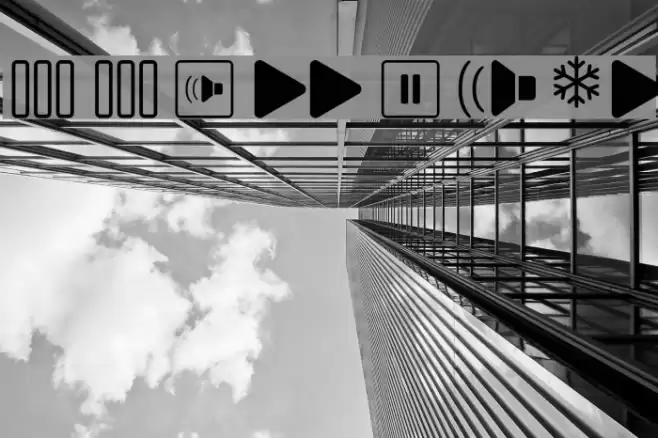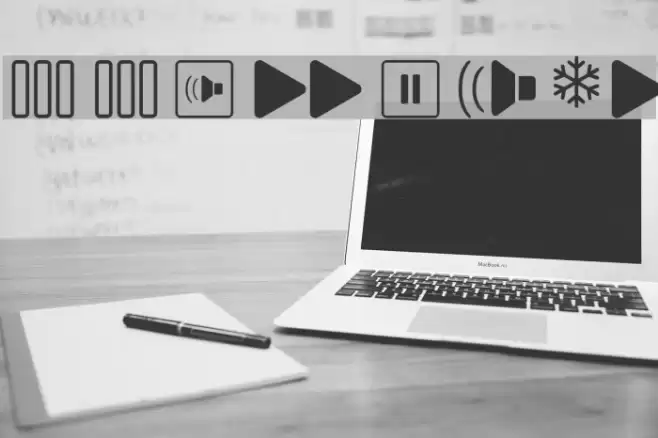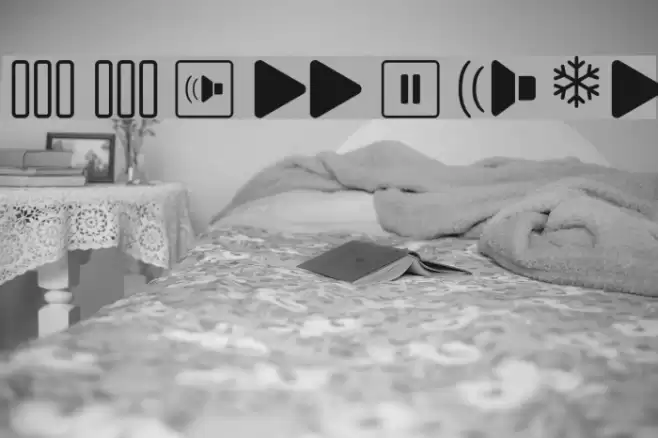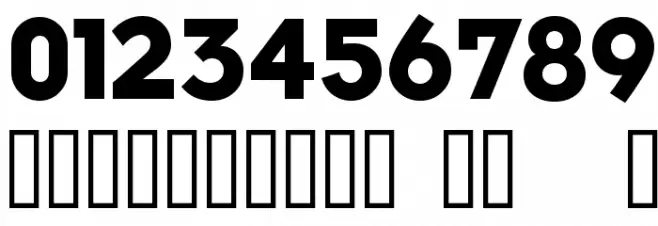
LL_Record Font
LL_Record Description
A bold, geometric font featuring a mix of large, rounded sans-serif numerals and a wide variety of solid and outlined media control, weather, and signal icons. The icons are clear and highly legible, designed with consistent line thickness and spacing, making them suitable for user interfaces and dashboards.
Bold geometric numerals paired with clear, functional media and utility icons from Uncategorized fonts.
- Overall Style: Modern, Functional
- Use Case: Icons for interfaces, large display numbers, dashboards.